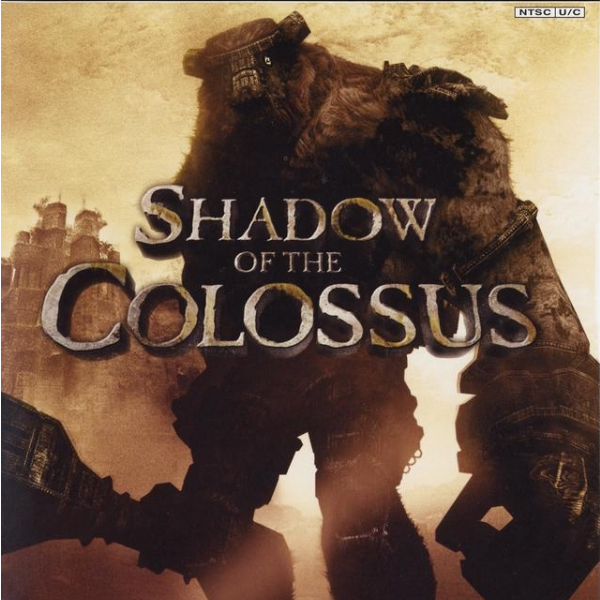
Shadow of the Colossus Font
Action & AdventureShadow of the Colossus is a 2005 action-adventure game developed by Japan Studio and Team Ico and published by Sony Computer Entertainment. In the game, the player controls a character named Wander who is on a quest to defeat sixteen giant creatures known as Colossi in order to restore the life of a woman named Mono.
Caslon Antique, a decorative font created by Berne Nadall in 1894, is used on the box art for the Shadow of the Colossus game title. More details about the font can be found here.